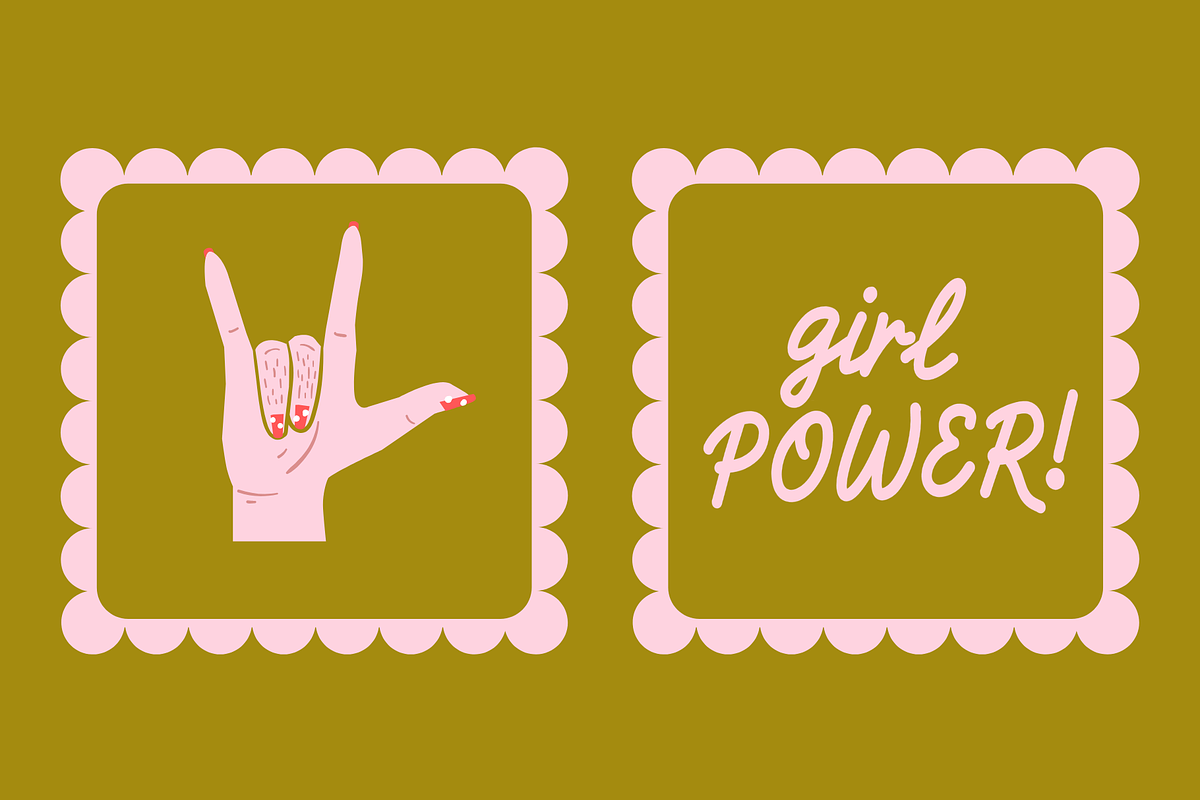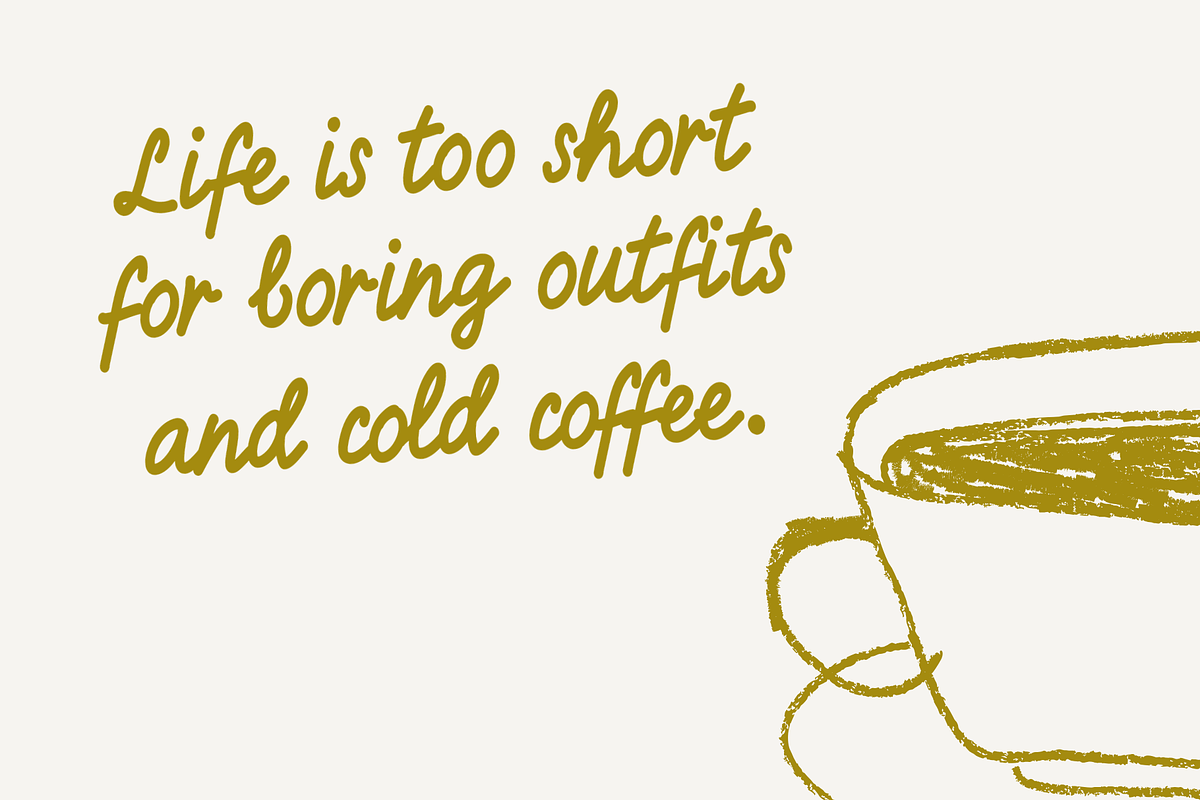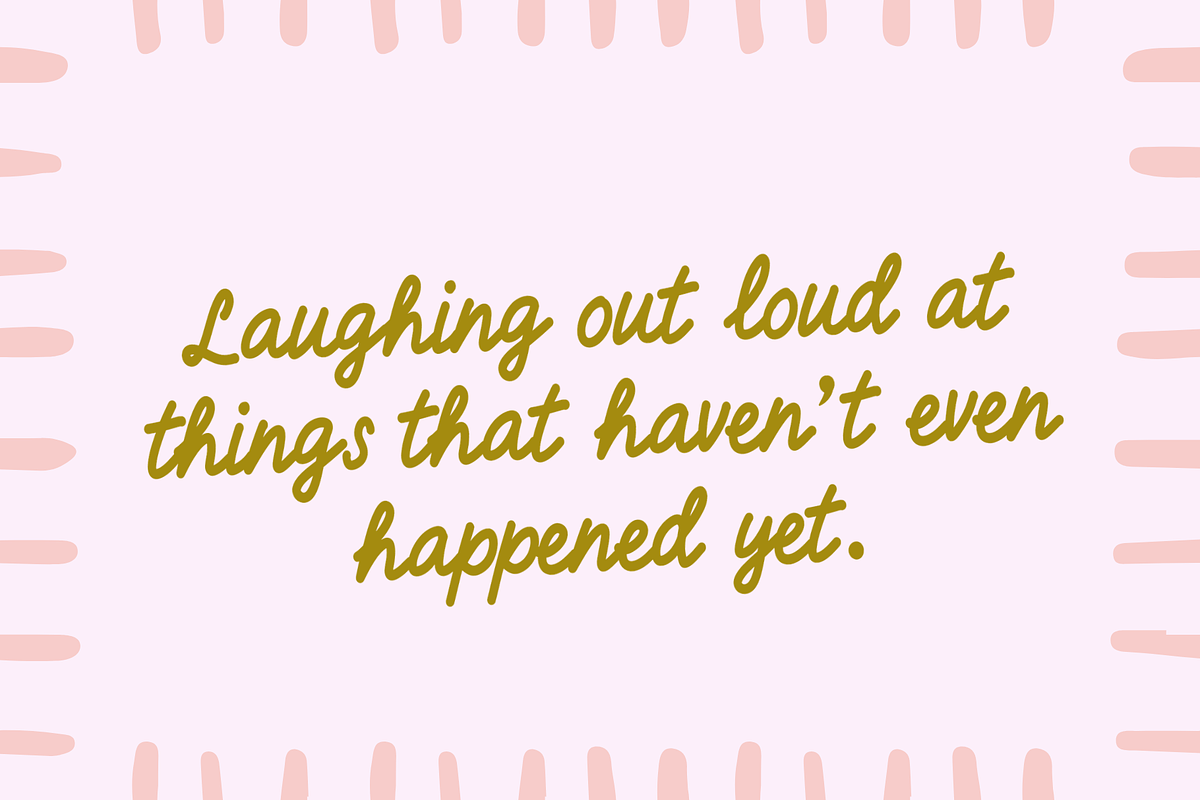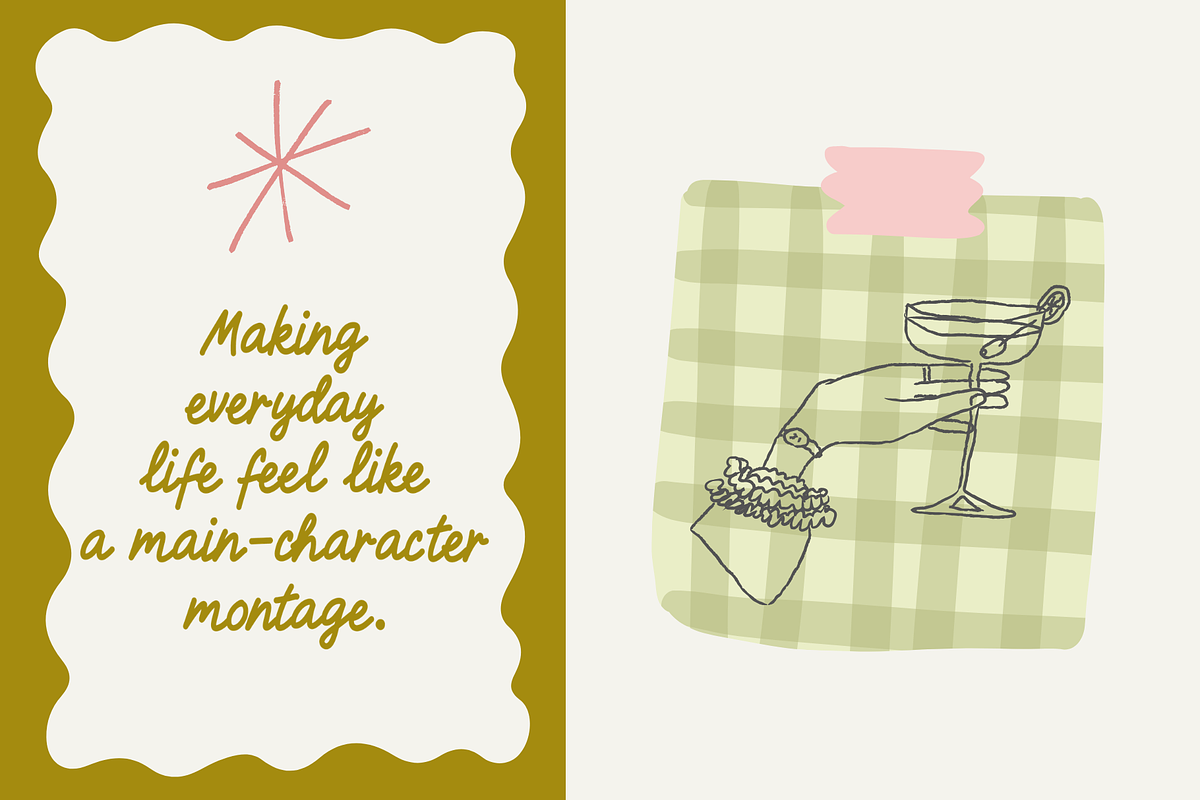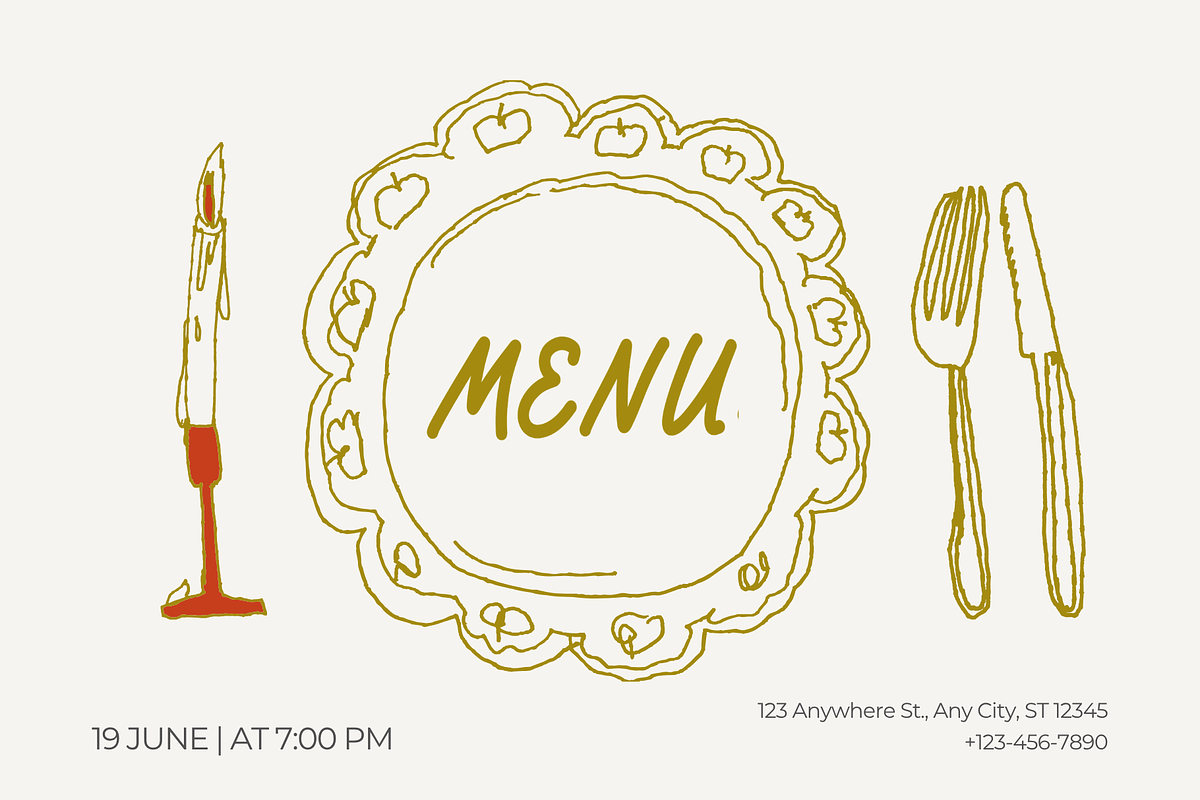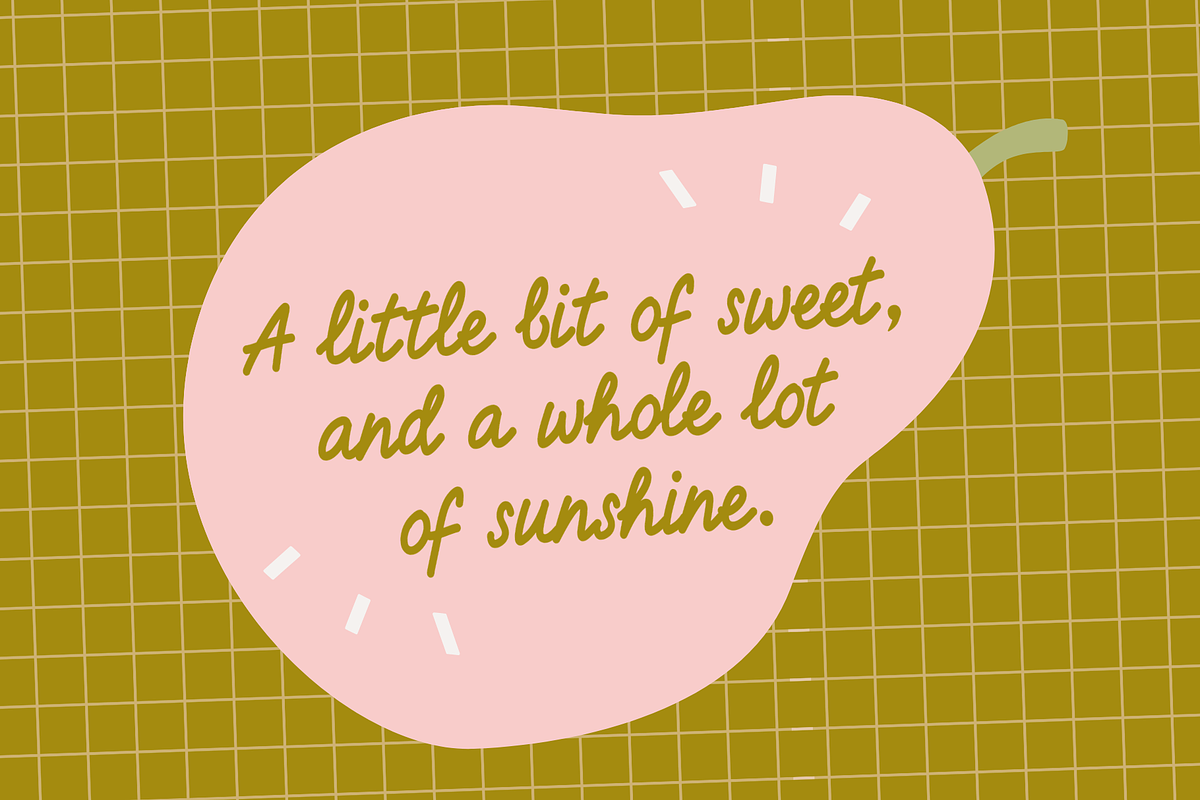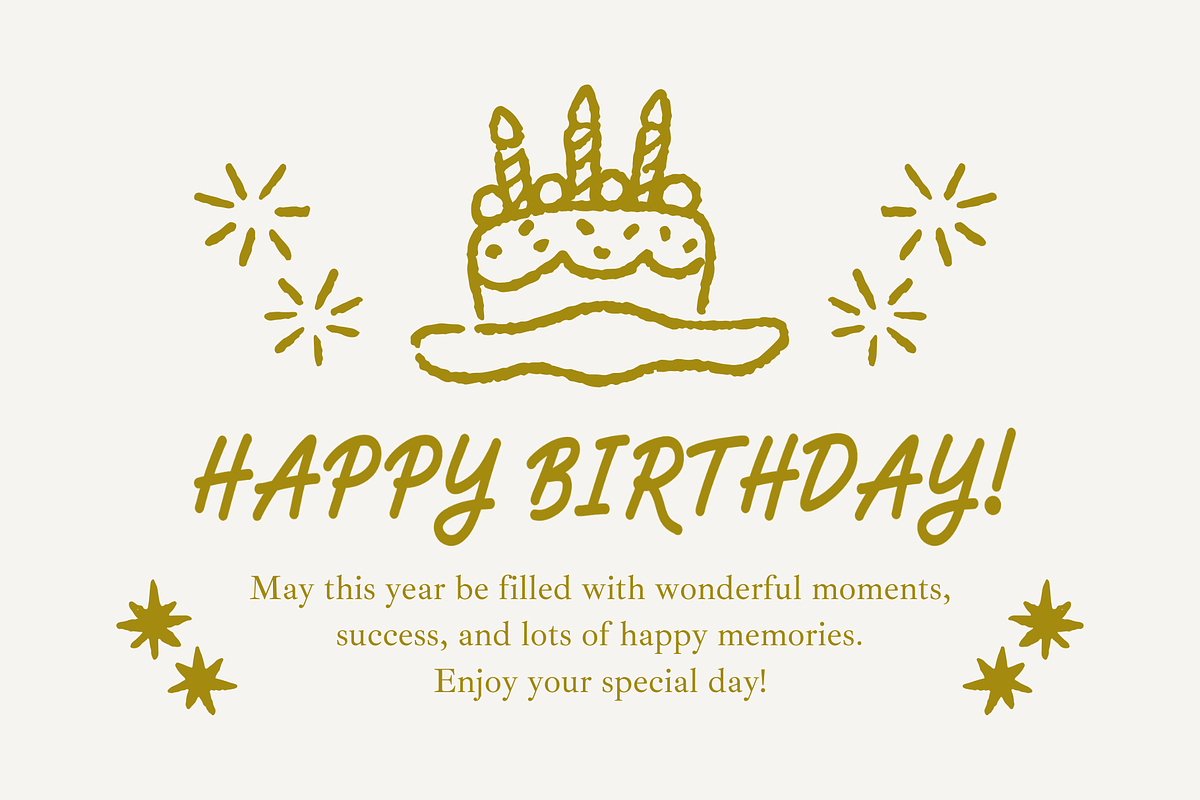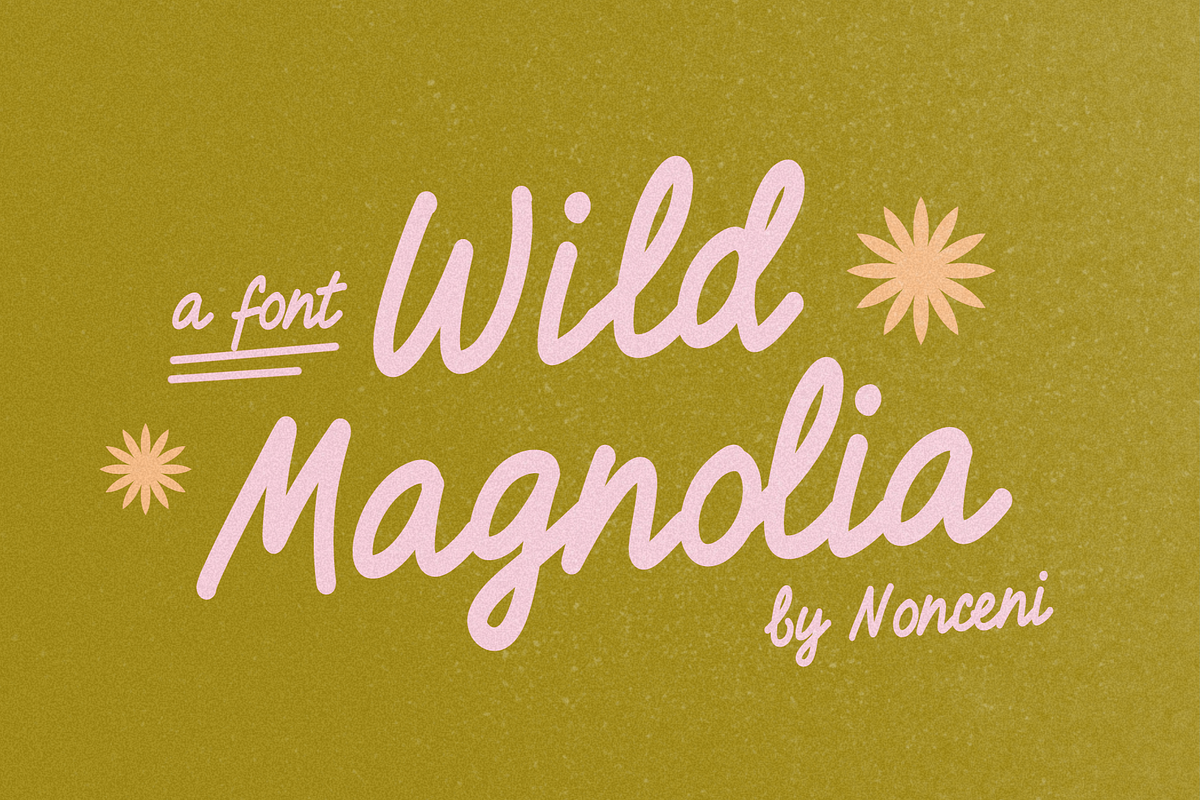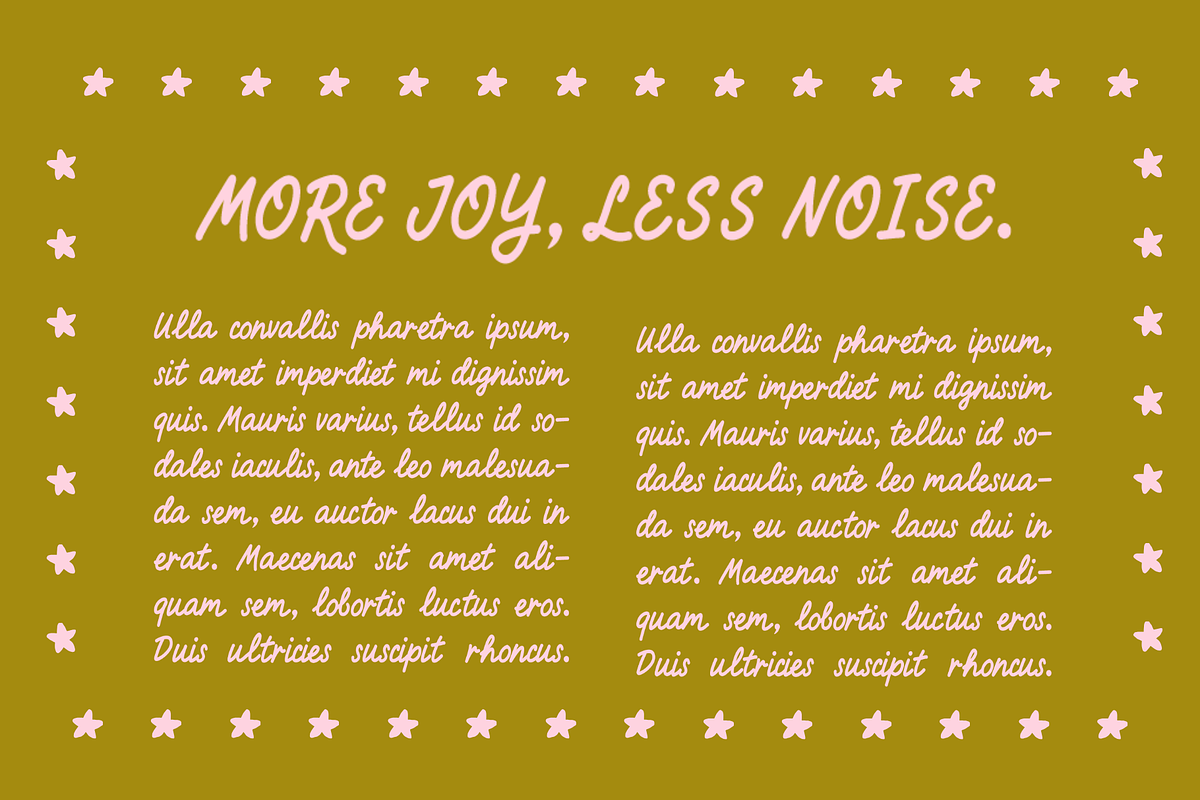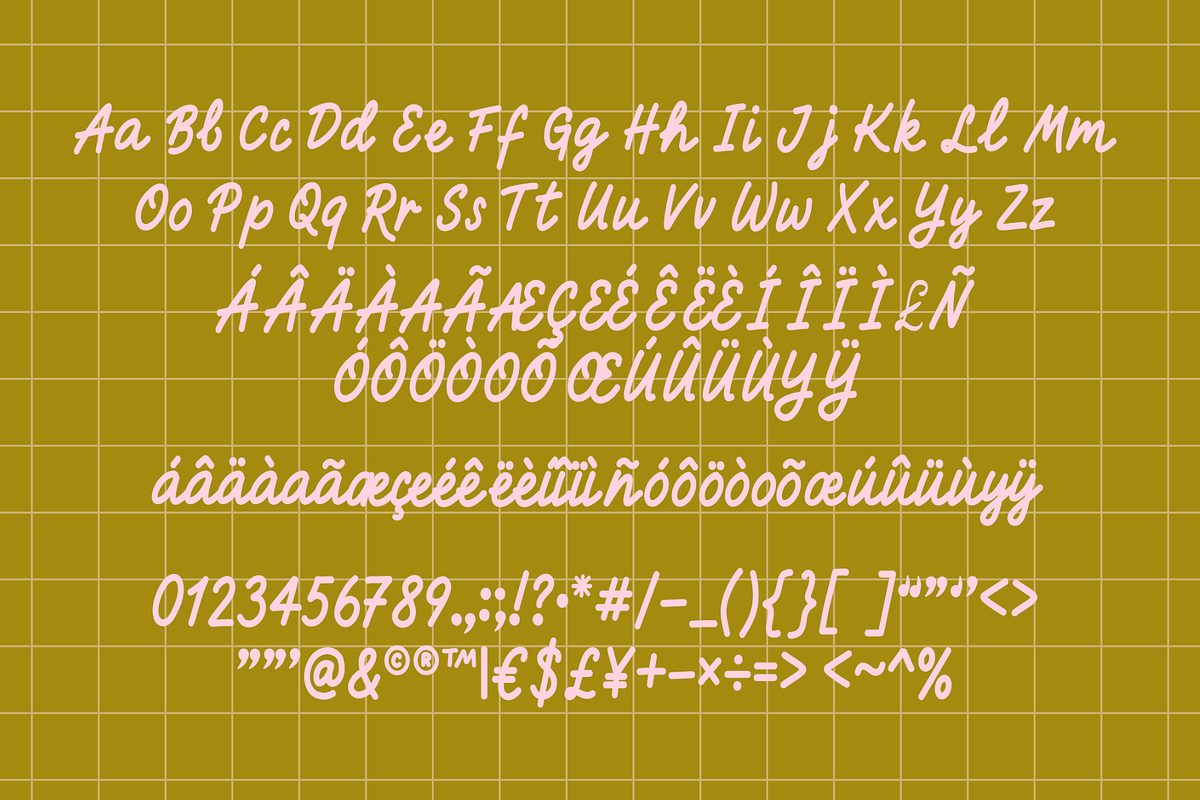
Wild Magnolia Handwriting Script
Wild Magnolia handcrafted script font designed by Nonceni. Featuring fluid, natural letterforms and a warm vintage spirit, this typeface is made to stand out on greeting cards, wedding invitations, and editorial layouts.
Wild Magnolia Script: A beautifully balanced handwritten script font with smooth connections and a personal touch.
Multilingual Support: English, Spanish, French, Italian, German, Portuguese
Wedding & Event Stationery: Design gorgeous invitations, RSVP cards, and celebration banners
Greeting Cards & Quotes: Elevate birthday cards, thoughtful notes, and expressive text layouts with a warm, handwritten feel.
Branding & Packaging: Create friendly, memorable logos, aesthetic product labels, and custom social media graphics.
Editorial & Journaling: Pair with clean body text for striking cover headers, zines, and creative planners.